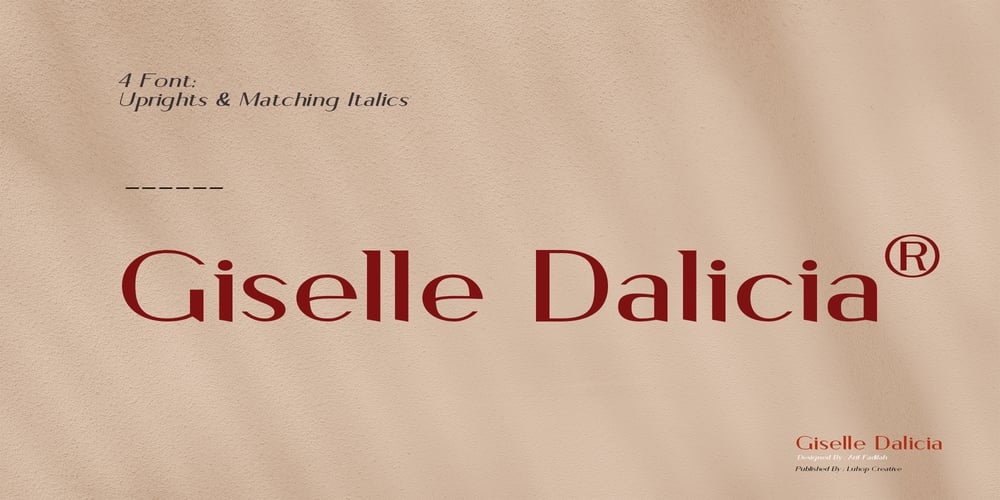
Giselle Dolicia Font Family was designed by Arif Fadilah and published by Luhop Creative. Giselle Dolicia contains 4 styles and family package options. Giselle Dolicia is an elegant and assertive serif font. Fall for its ravishing style and use it to create gorgeous wedding invitations, beautiful stationary art, eye-catching social media posts, and much more!Giselle Dolicia is also included full set of: uppercase and lowercase letters multilingual symbols numerals punctuation standard ligaturesWish you enjoy our font and if you have a question, don’t hesitate to drop message & I’m happy to help ๐